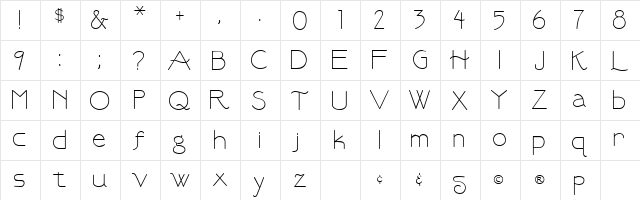
MummNeoClassic Thin
Design Context for MummNeoClassic Typeface
MummNeoClassic wears its vintage influences proudly, with letterforms that recall mid-century signage, classic packaging, and nostalgia-driven design. Its slender proportions lend an understated elegance to any composition.
Perfect for vintage-inspired branding, retro packaging, nostalgia campaigns, and period-accurate editorial design.
Font Pairing: Combine MummNeoClassic with a simple slab or neutral sans — period-accurate companions reinforce the vintage feel without competing for attention.
Pro Tip: Use MummNeoClassic for headlines and pull quotes rather than body copy — its personality is best appreciated in short, focused bursts.